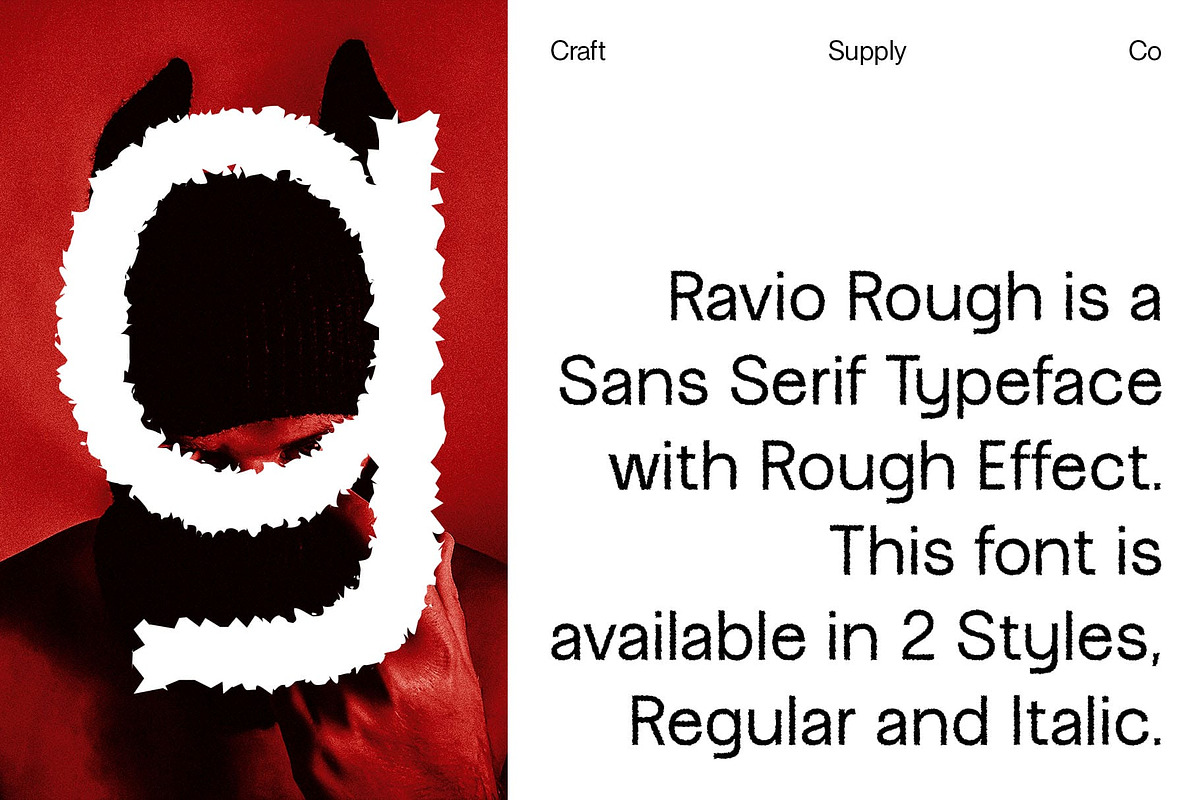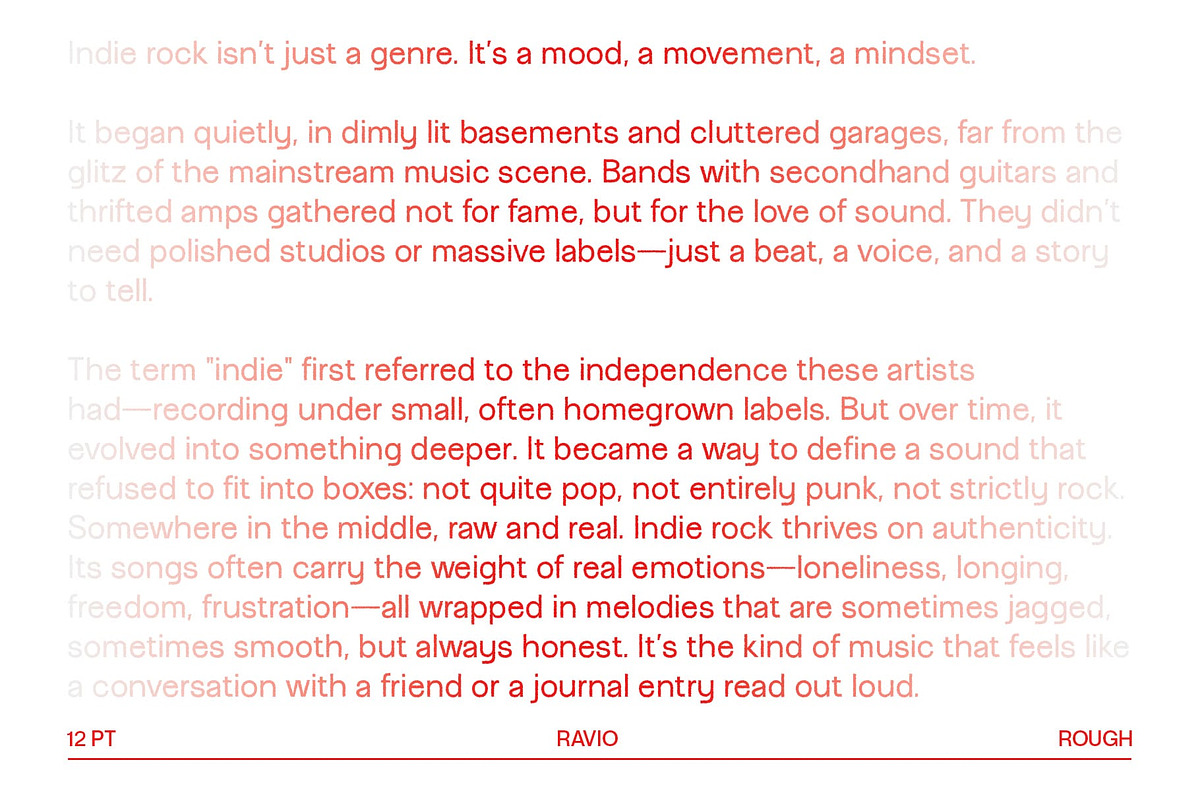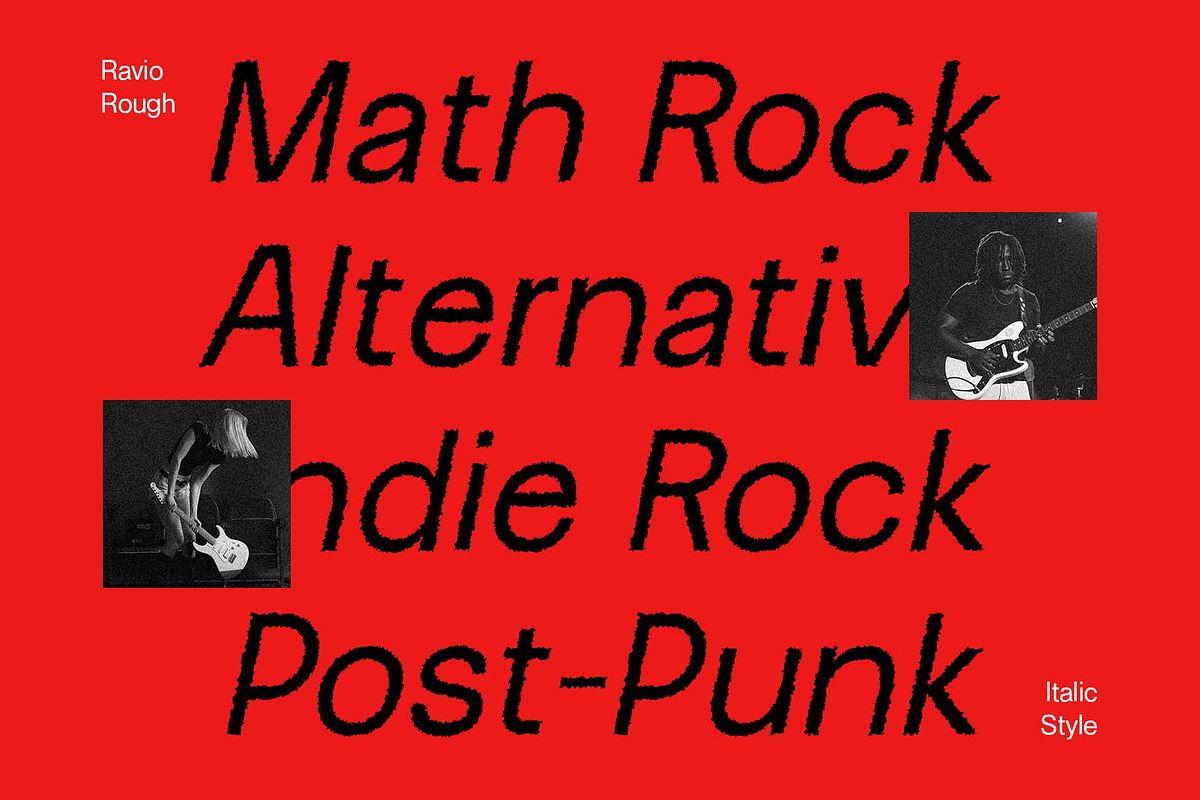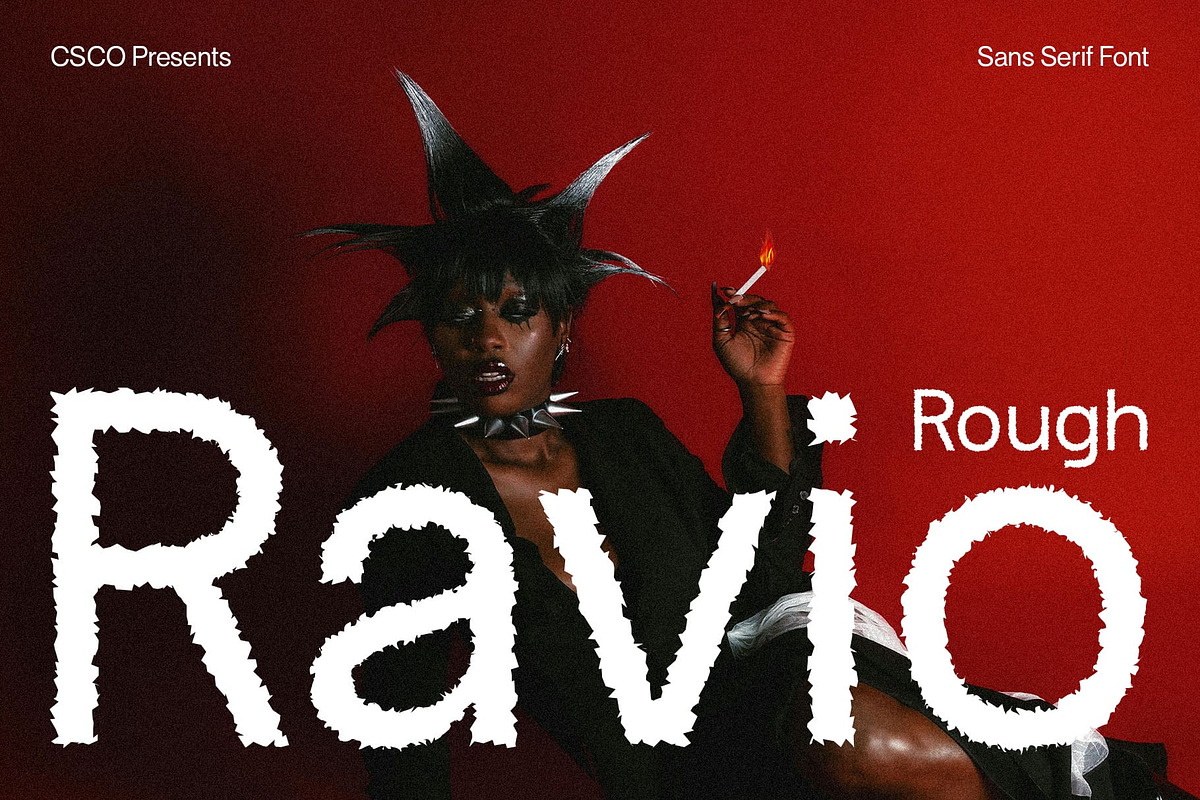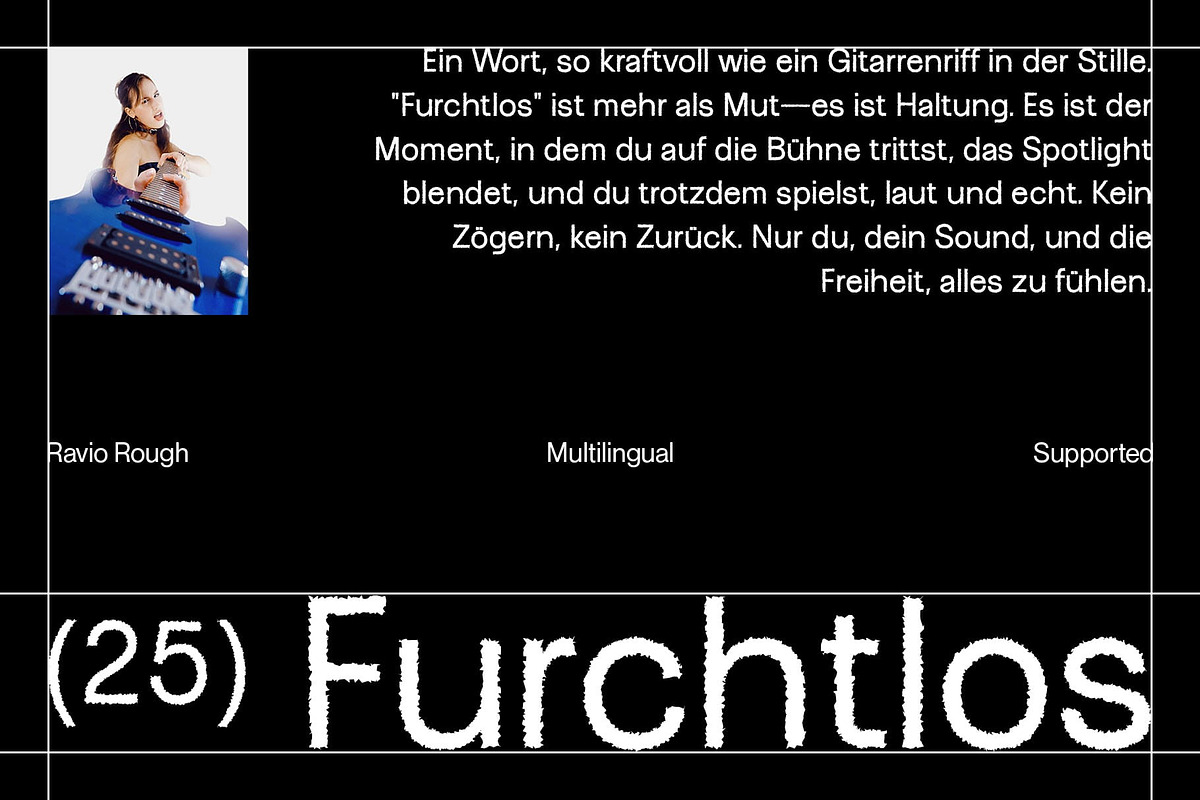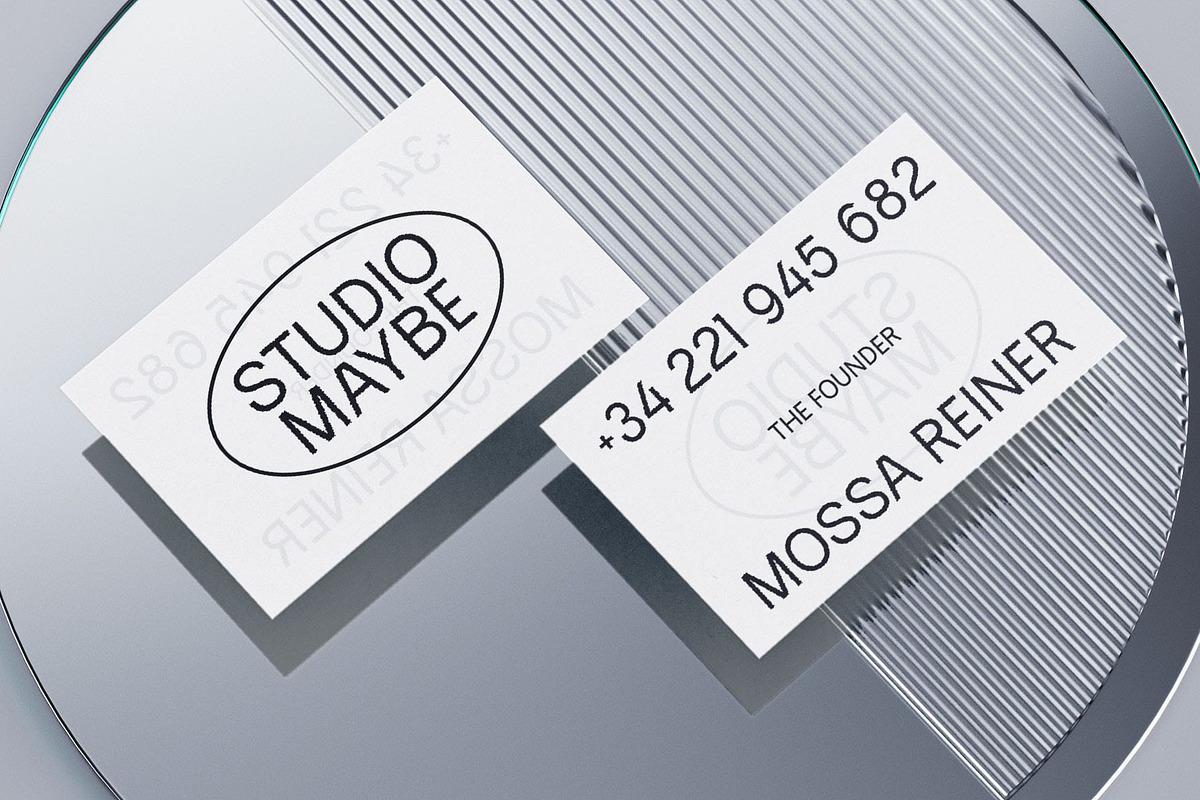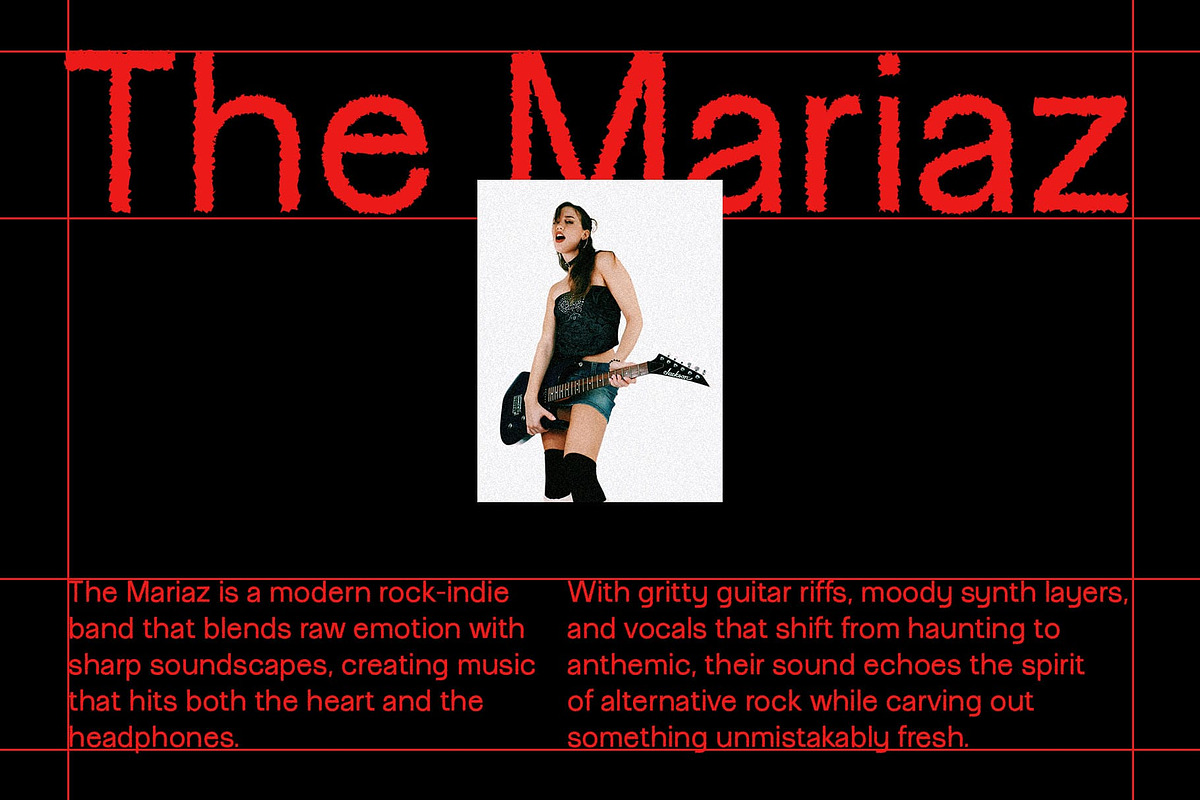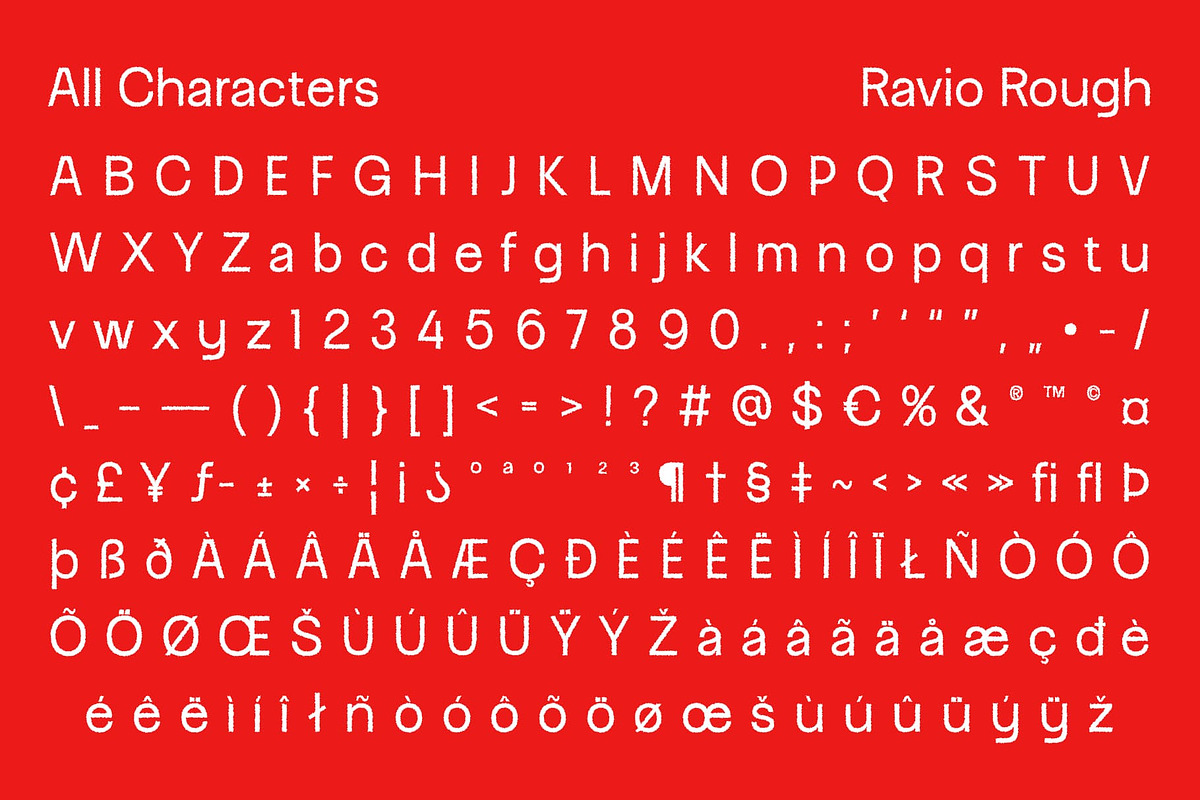
Ravio Rough
Ravio Rough Font – Modern Precision with a Textured Edge
Clean Geometry for a Contemporary Feel Ravio Rough is a modern sans serif font built on clean, geometric foundations. Its sleek letterforms are shaped with precision, offering a sense of order, stability, and balance. The minimalist structure creates a clear and assertive appearance, making it perfect for contemporary design needs that value clarity and professionalism.
Minimalist Style with Bold Simplicity Though simple in construction, Ravio Rough makes a bold visual impact. Its refined proportions and consistent weight deliver a professional, confident tone that works seamlessly across digital and print media. The font’s simplicity allows it to adapt to a wide range of applications, from clean branding to structured layouts.
Rough Texture for Organic Contrast Adding contrast to its modern base is a rugged, rough effect that introduces a layer of grit and texture. This handcrafted look softens the font’s mechanical precision, giving it a slightly vintage, organic quality. The textured surface brings warmth and depth to the clean lines, resulting in a typeface that feels both modern and human.
Perfect for Clean Yet Expressive Design Ravio Rough strikes a unique balance between minimalism and personality. Ideal for branding, editorial layouts, posters, or creative graphics, it brings structure with a subtle edge. Whether used for bold headlines or understated visual identities, this font provides a contemporary look that’s clean, dynamic, and full of character.
- Ravio Rough Regular
- Ravio Rough Italic